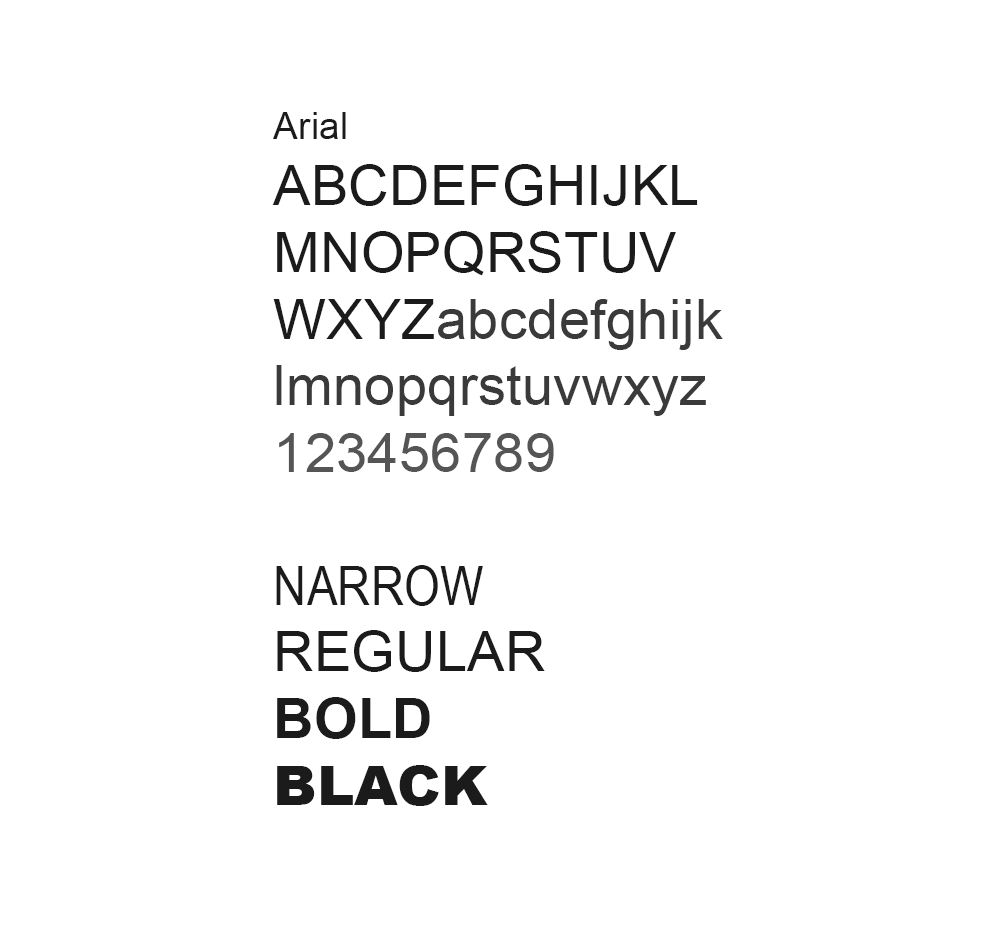
Latex Change Font To Arial. I tried with some of them like: \fontencoding {t1} \fontfamily {garamond} \fontseries {m} \fontshape {it} \fontsize {12} {15} \selectfont.
1.1.1 latex arial typeface the following example shows how to include a clone of the font arial. Change the default font for all plots using rcparams Helvet package actually uses nimbus sans font (a helvetica clone);
Macros To Change Text And Mathematics Fonts In Tex:
I wrote an article about font sizes in latex, which has become a hugely popular post. The popular latex font typefaces are originated from four families: The font style describes whether a font is with decorations (serif) or without (sans serif) as well as other features of its.
This Series Of Commands Set The Current Font To Medium Weight Italic Garamond 12Pt Type With 15Pt Leading In The T1 Encoding Scheme, And The \Selectfont.
I am writing a document in markdown, and i read that i could change the font to arial like this: Other features of a font can be summarized as its style. \huge, \huge, \large, \normalsize, \small, \footnotesize, \scriptsize, and \tiny.
Produces The Pdf With Default Font, Not Calibri, However, The Font Option Is Passed Fine.
The commands to change font attributes are illustrated by the following example: I tried with some of them like: In my opinion the best overview is provided by latex font catalogue.
Until Recently Latex Has Used Its Own Font Format Which Has Meant That The Choice Of Fonts Was Limited To Those That Had Been Ported Or Created For Use With Latex.
Different elements in a l a t e x document are formatted with different fonts, for example in a verbatim environment the text is displayed using a typewriter style. \usepackage{arial} % load package which provides the font \renewcommand{\sfdefault}{ua1} % set default serif font as arial \renewcommand{\familydefault}{\sfdefault} % set the default. In addition, latex commands inserted after yaml seem to override it:
\Fontencoding {T1} \Fontfamily {Garamond} \Fontseries {M} \Fontshape {It} \Fontsize {12} {15} \Selectfont.
Setting fonts for different latex elements. Change the font size of a piece of text using these commands, from the largest to the smallest: A lot more latex font typefaces are available, see the reference guide.